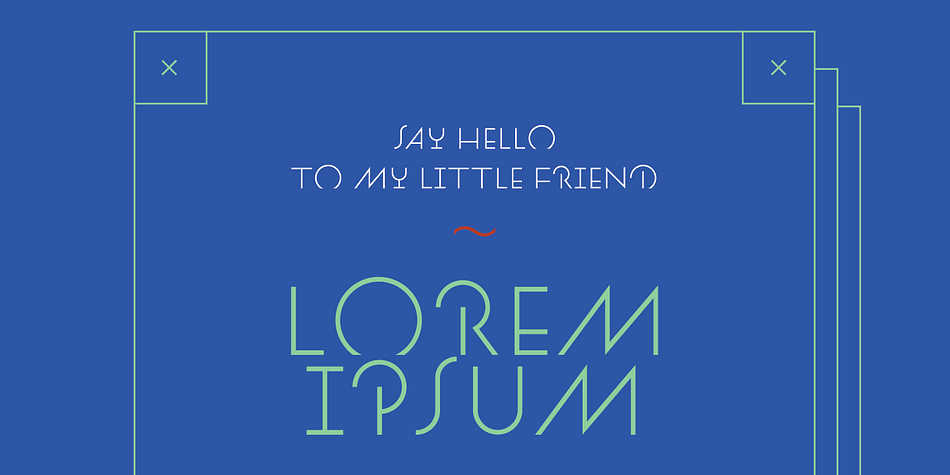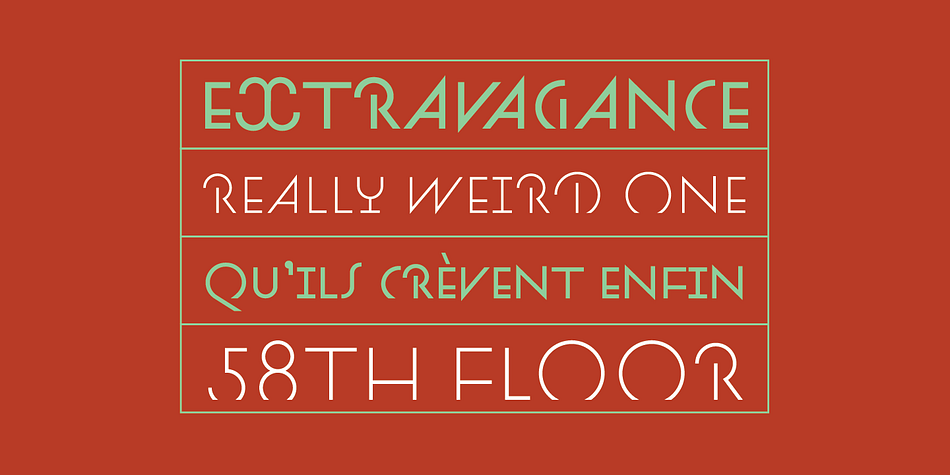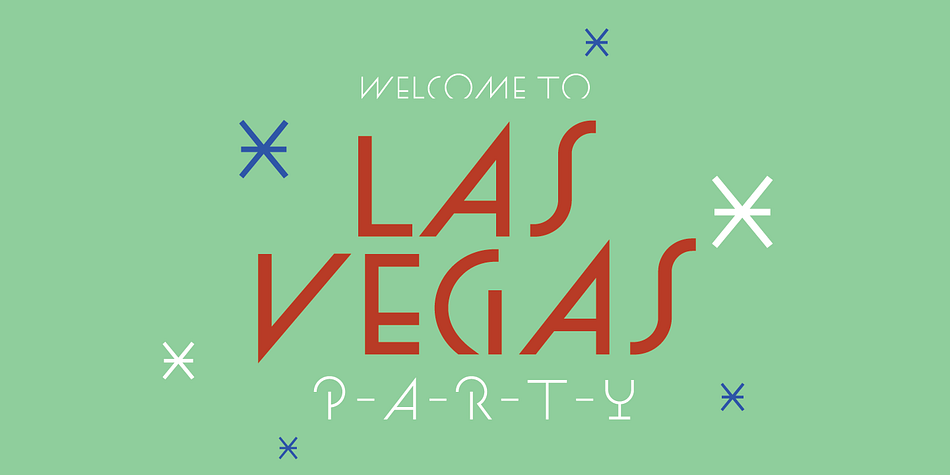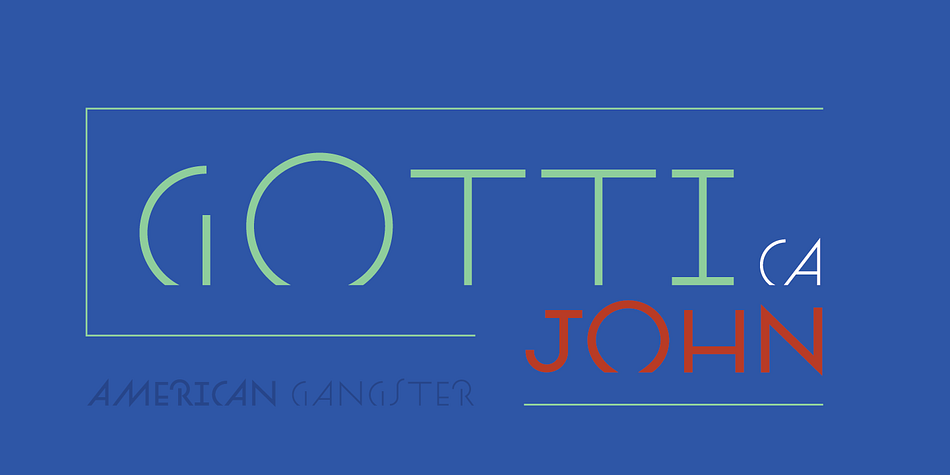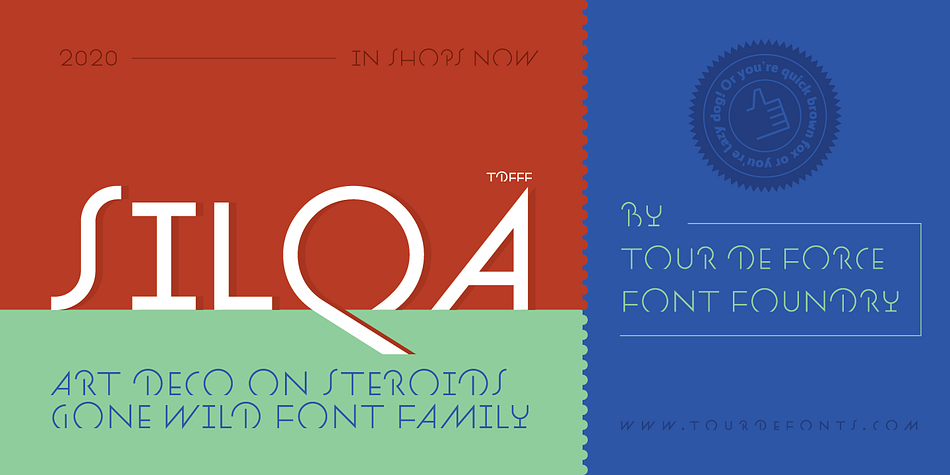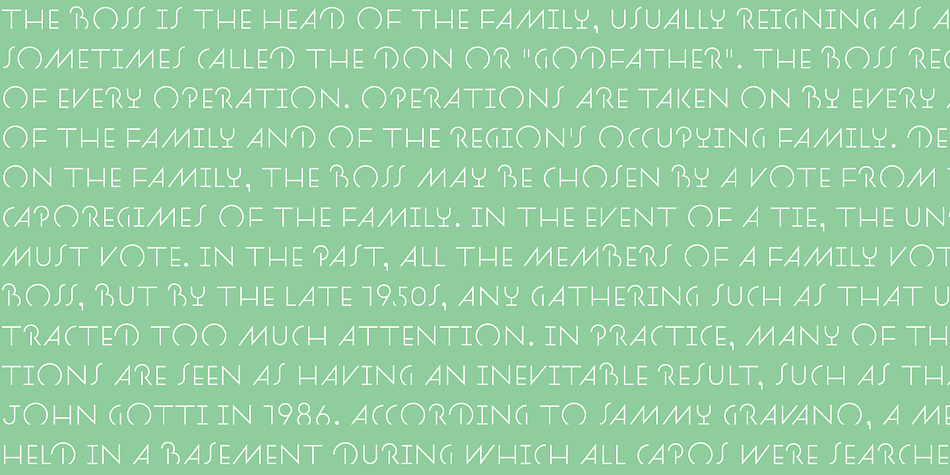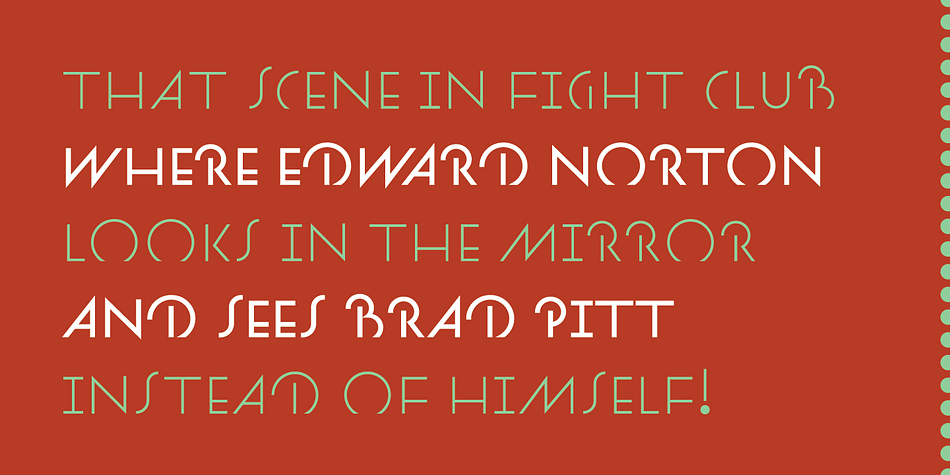
Designed by Dusan Jelesijevic, Silqa is a display sans and stencil font family. This typeface has two styles and was published by Tour de Force Font Foundry.
Silqa is distinctive display family inspired with art deco style. Unique family that combines cutoff letter shapes, swashes, geometry and jumpy ascender value is ideal for titles, headlines and product names – in every usage where originality is desirable.